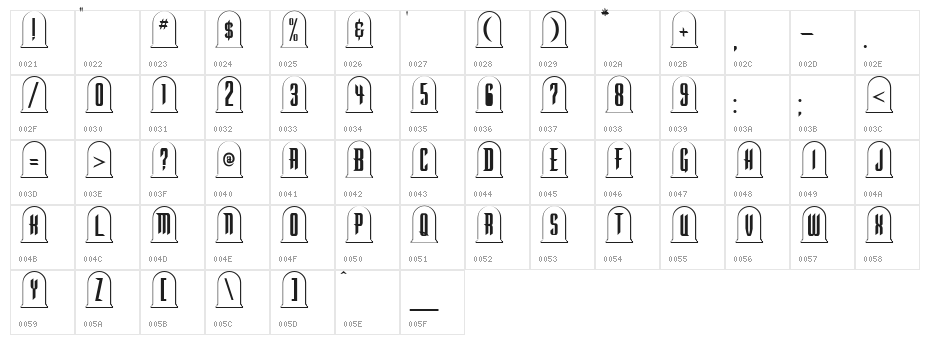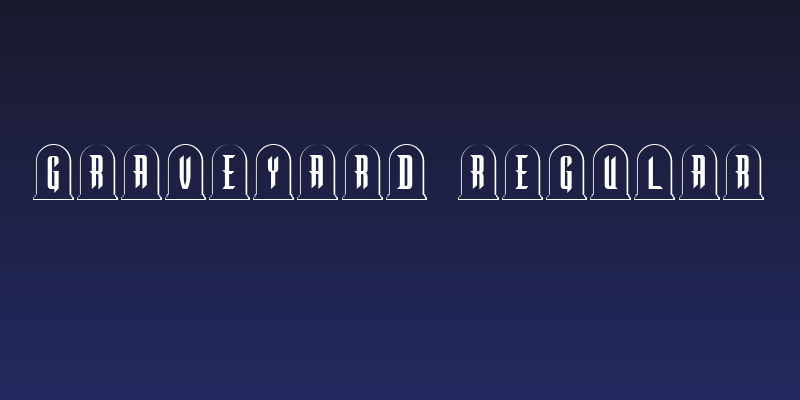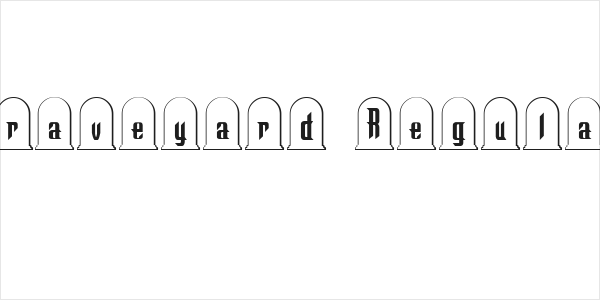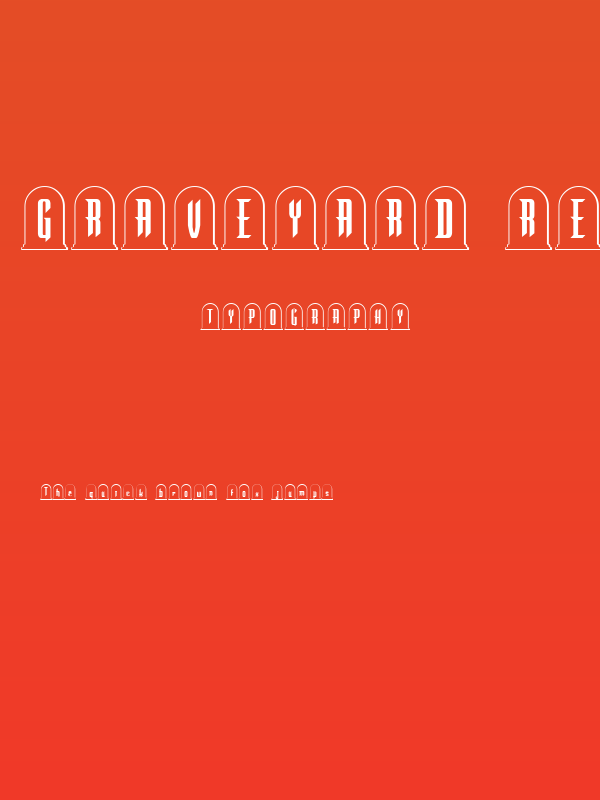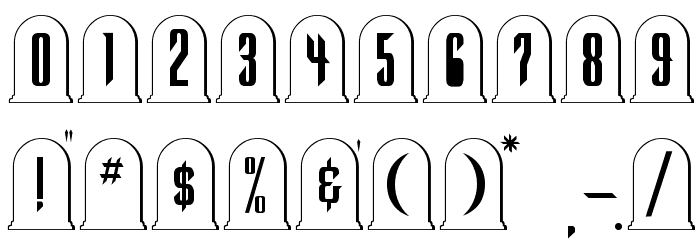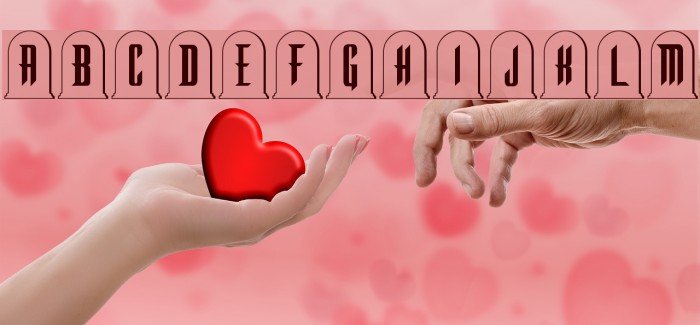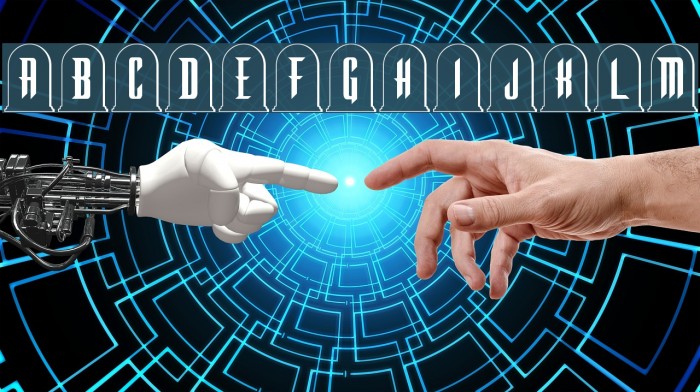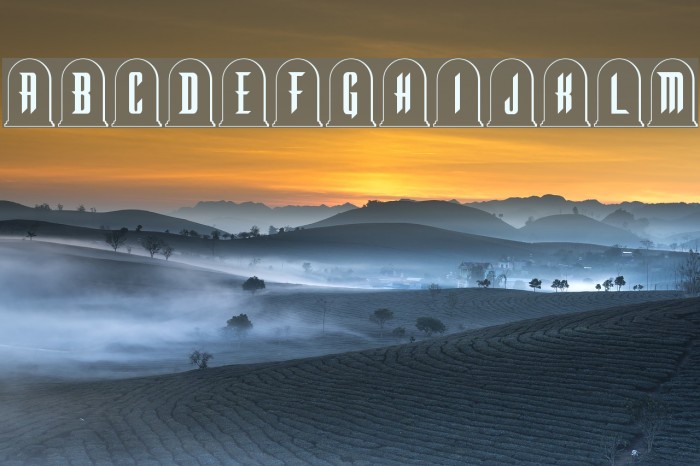
Graveyard Regular Font
Graveyard Regular Description
This font features a unique and decorative style, with each character enclosed in a tombstone-like shape, evoking a spooky and mysterious atmosphere. The letters are bold and angular, with sharp edges and a gothic influence. The uppercase and lowercase letters maintain a consistent design, while the numbers and special characters follow the same thematic enclosure. This font is perfect for Halloween-themed projects or any design that requires a touch of the macabre.
| Overall Style | Gothic, Decorative |
| Use Case | Headlines, Logos, Themed Events |
| Proposed Projects | Ideal for Halloween invitations, horror movie posters, themed event flyers, and gothic-style branding. |